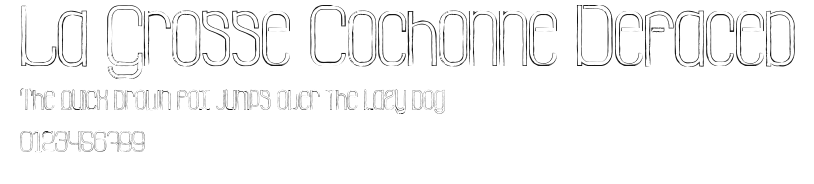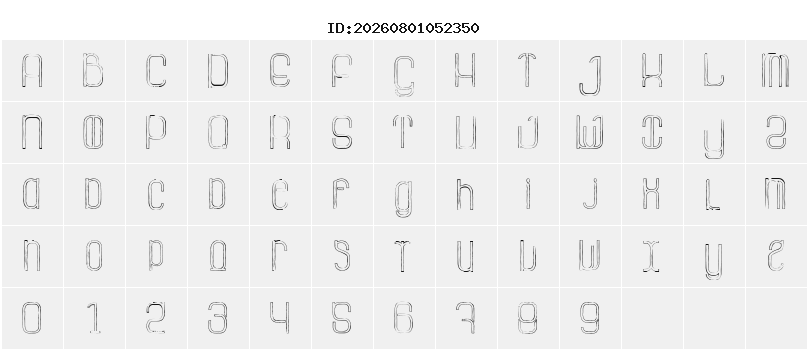
• Font Name: La Grosse Cochonne Defaced
• Designer: M.K.V
About La Grosse Cochonne Defaced.ttf
La Grosse Cochonne Defaced.ttf is a modern, elegant sans-serif font designed for ultimate readability and visual harmony. Perfect for branding, headlines, web design, and print materials.